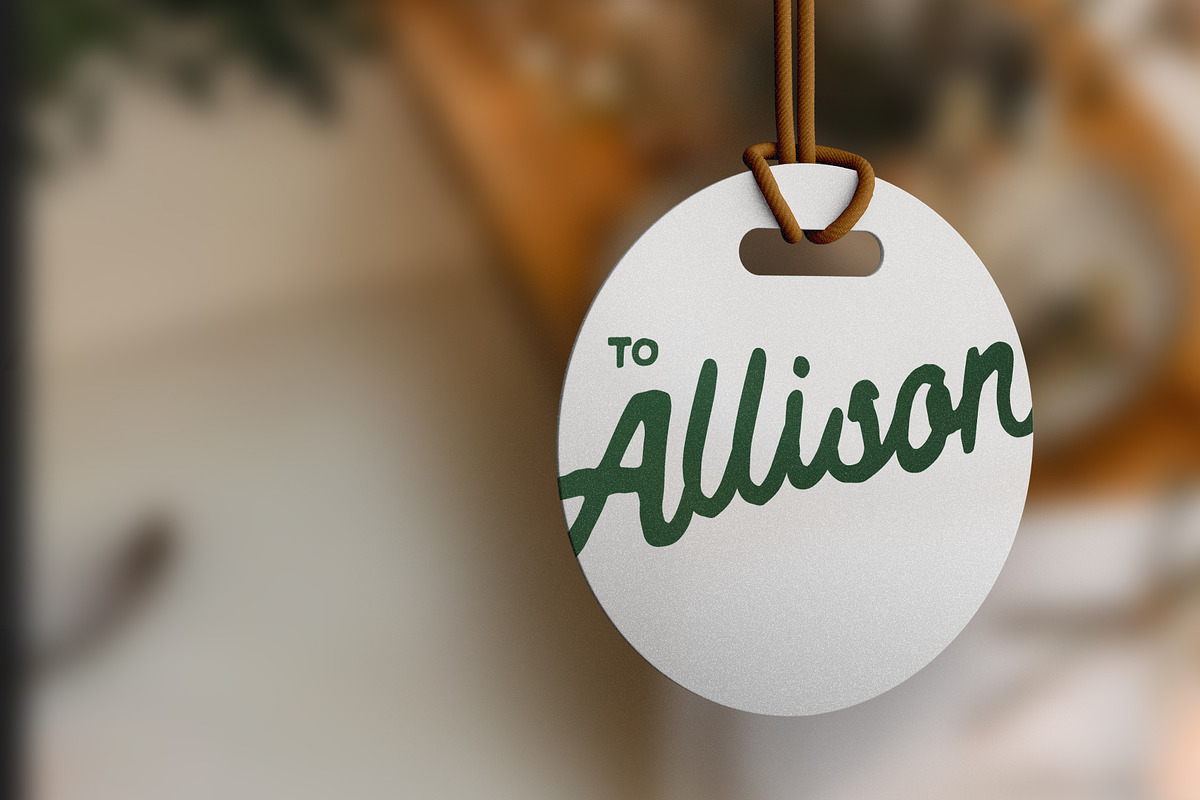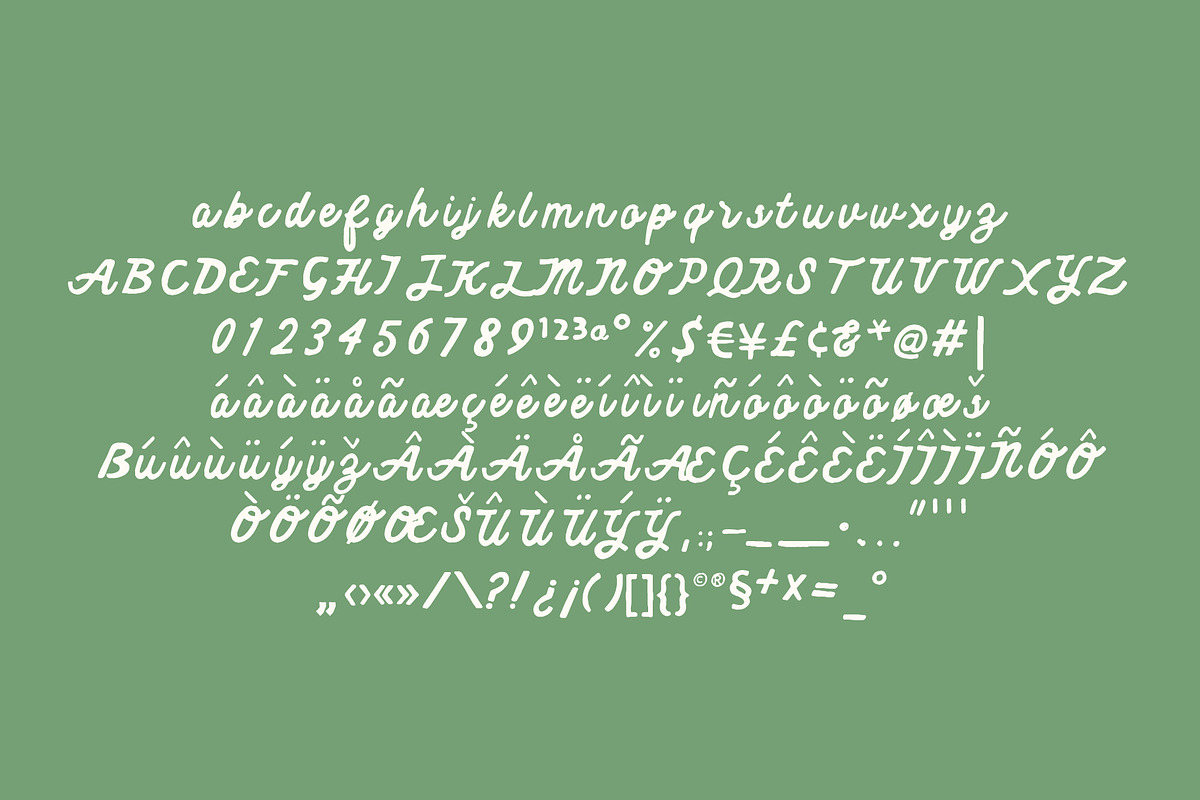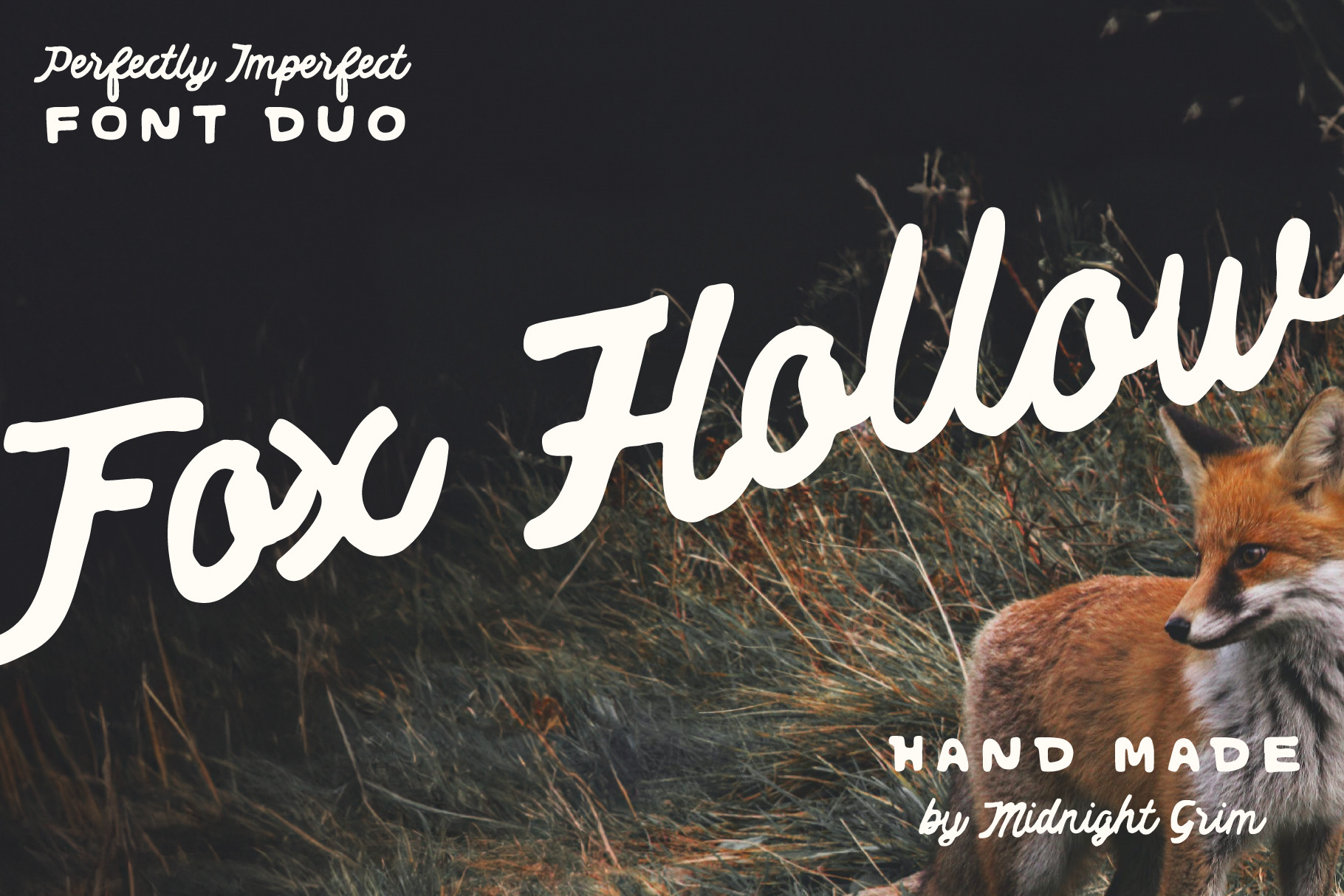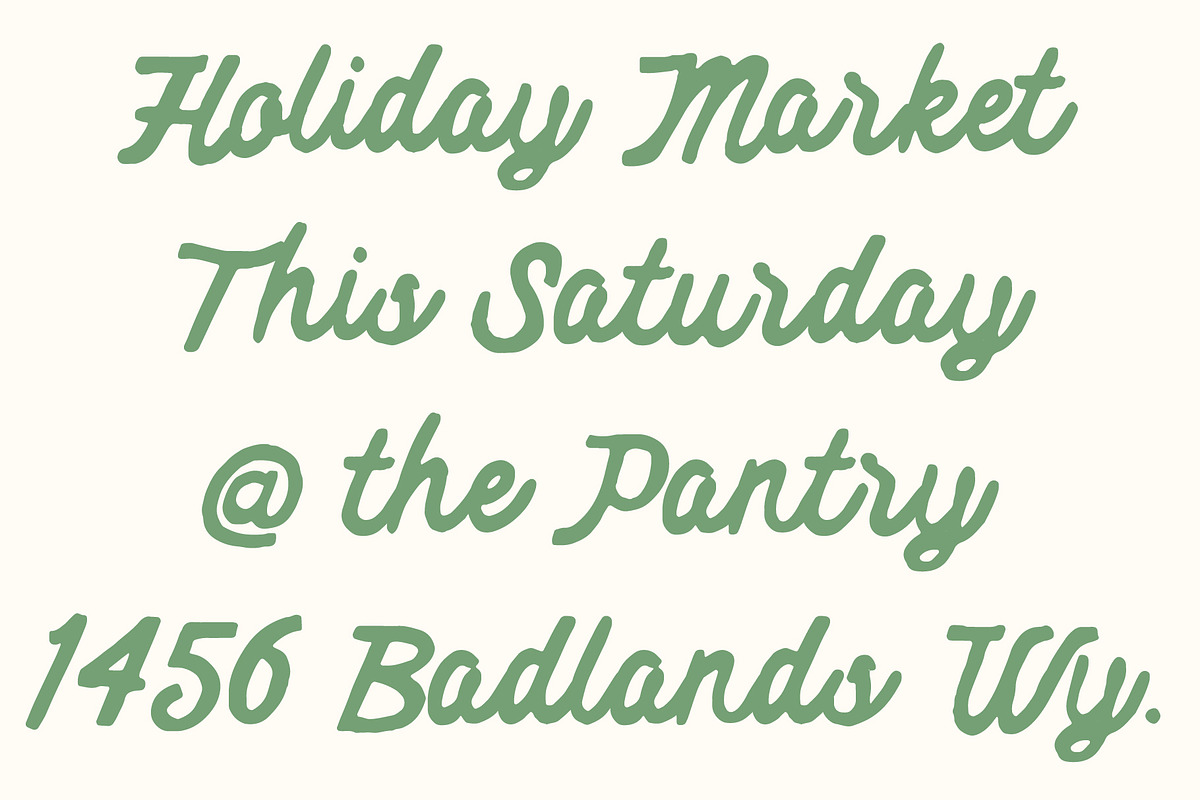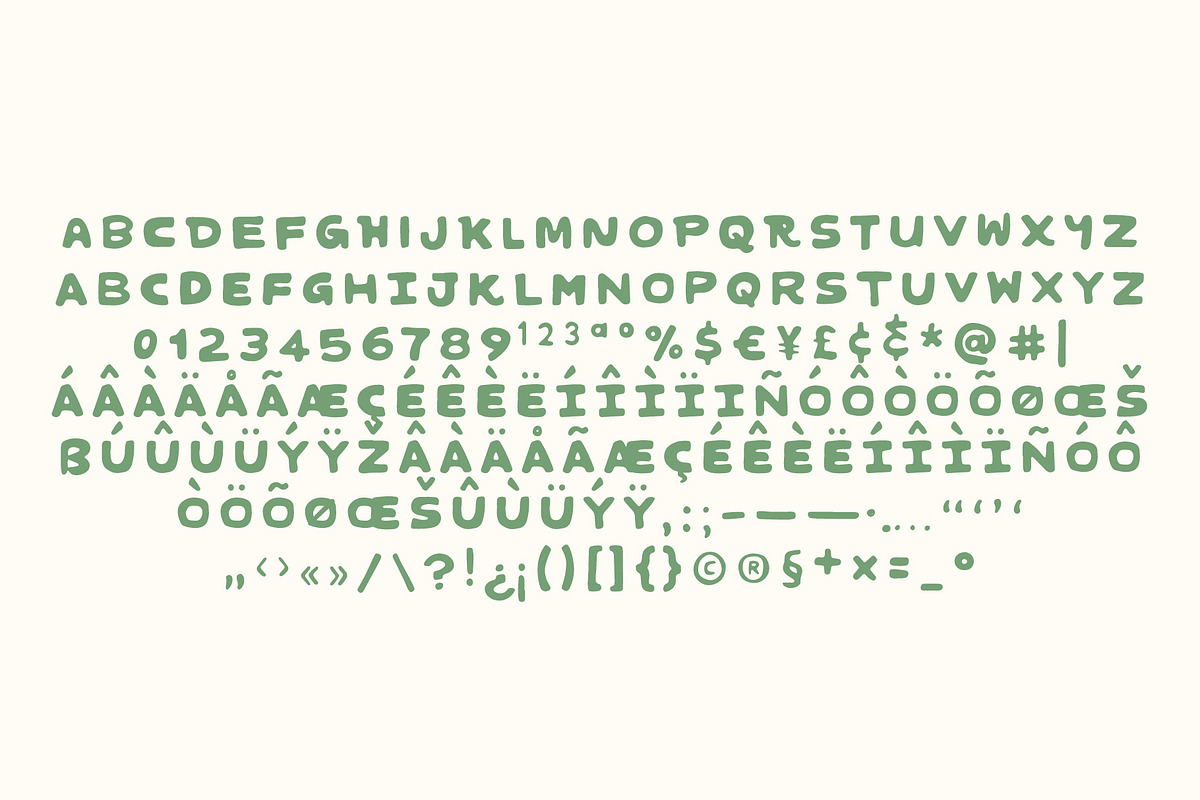
Fox Hollow Font Duo
Introducing Fox Hollow, a captivating and versatile font duo designed to elevate your creative projects with its unique blend of charm and modernity. This dynamic duo features not just one, but two distinct fonts - a sleek sans-serif and an elegant script, offering endless possibilities for your designs.
Crafted with meticulous attention to detail, the sans-serif font exudes a contemporary and sophisticated vibe, perfect for creating clean and professional-looking text. Meanwhile, the script font adds a touch of handcrafted elegance, boasting fluid strokes and whimsical details that infuse your projects with personality and charm.
The beauty of Fox Hollow lies in its versatility. Use these fonts individually to make a statement or combine them seamlessly for a harmonious interplay of styles. Whether you're designing logos, branding materials, invitations, wedding stationery, social media posts, posters, packaging, or crafting blog content, these fonts adapt effortlessly to various design needs.
Infuse your creations with the essence of modernity, boho chic, playfulness, and natural allure. From captivating headlines to intricate details, Fox Hollow empowers you to explore your creative boundaries and leave a lasting impression.
Unlock the potential of your designs with Fox Hollow - a font duo that not only complements each other but also opens doors to limitless creativity. Embrace the freedom to express your unique style and captivate your audience with every stroke.
Experience the magic of Fox Hollow and elevate your projects to new heights!